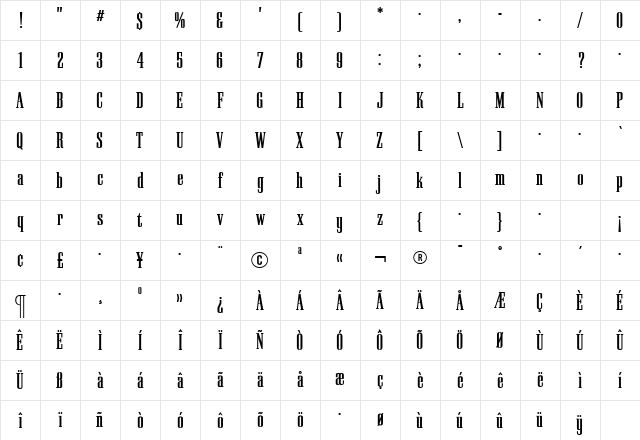
PallMallBold Roman
Design Context for PallMallBold
PallMallBold is a composed and adaptable typeface that performs quietly and consistently across a wide range of design contexts. Its bold stroke weight gives it real presence on the page.